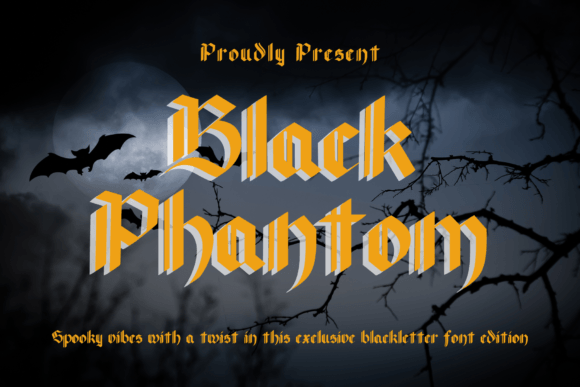
The Elusive Font: My Journey with Black Phantom
I still remember the design project that led me to discover the Black Phantom font. I was working on a branding project for a luxury fashion brand, and I needed a font that would convey elegance, sophistication, and a touch of mystery. After hours of searching through font libraries and testing various options, I stumbled upon Black Phantom. Its intricate Gothic design and classic Roman style immediately caught my attention, and I knew I had found the perfect fit.
An Honest Review: What I Love and What I Don’t
• ✅ Highly individualistic style that adds personality to any design project
• ✅ Combines sharp angles with harmonious straight and curved lines, creating a unique aesthetic
• ✅ Perfect for Gothic or blackletter themed designs, with an elegant twist
• ✅ Works well for both titles and body text, making it a versatile font
• ⚠️ May not be suitable for very small font sizes, as details can get lost
• ⚠️ Limited use of punctuation and special characters, which can be a limitation for some projects
The Designer Inspiration Behind Black Phantom
The story behind Black Phantom is one of passion and dedication. The font’s designer, inspired by the timeless aesthetics of Gothic architecture and classic Roman typography, set out to create a font that would embody elegance and sophistication. Through countless hours of refinement and iteration, Black Phantom was born – a font that combines the best of both worlds, with a unique and captivating personality.
What is the best use for Black Phantom font? Black Phantom is perfect for designs that require a touch of elegance and sophistication, such as luxury branding, advertising, and editorial projects.
Does Black Phantom support OpenType features? Yes, Black Phantom supports OpenType features, including ligatures, stylistic alternates, and glyphs, which can be accessed through compatible design software.